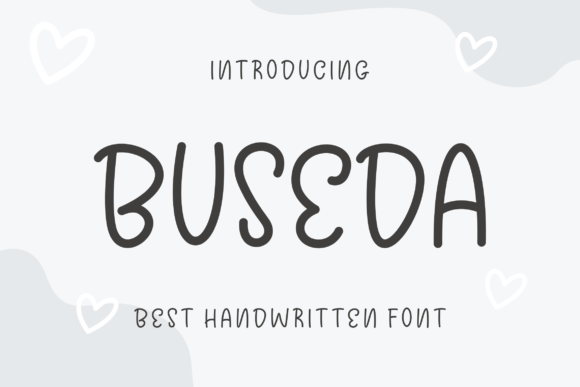
Behold Buseda Font - The Epitome of Technological Elegance!
In a digital realm where innovation thrives and creativity flourishes, Buseda Font emerges as the ultimate typographic masterpiece, perfectly tailored to elevate your tech logo designs to unprecedented heights. This modern and authentic handwritten font, meticulously crafted by the renowned Jhon Aburame, is a testament to the transformative power of visual aesthetics in the digital sphere.
Buseda Font: A Symphony of Style and Substance
Buseda Font is more than just a collection of letters; it is an artistic expression that captures the essence of technological advancement and human ingenuity. With its flowing strokes, dynamic curves, and captivating charm, Buseda Font breathes life into your tech logo designs, making them stand out from the mundane and resonate with your target audience.
Forge an Unforgettable Brand Identity
In a fiercely competitive digital landscape, a distinctive brand identity is paramount to success. Buseda Font empowers you to create a tech logo that is not only visually stunning but also deeply meaningful. Its unique character and personality will leave an indelible mark on the minds of your customers, fostering brand recognition and loyalty.
Harness the Power of Emotional Connections
Humans are emotional beings, and emotions drive our decisions. Buseda Font understands this inherent human nature and taps into the power of emotional connections to create tech logos that resonate with your audience on a deeper level. Its carefully crafted glyphs evoke feelings of trust, innovation, and sophistication, making your brand more relatable and approachable.
A Universe of Creative Possibilities
With Buseda Font as your creative companion, the possibilities for tech logo designs are endless. Whether you envision a sleek and minimalist logo that exudes professionalism or a vibrant and playful logo that reflects your brand's youthful spirit, Buseda Font can effortlessly adapt to your unique vision. Its versatility is truly remarkable, allowing you to create logos that are as diverse and captivating as the digital world itself.
Elevate Your Tech Brand to New Heights
In the ever-evolving realm of technology, stagnation is the antithesis of progress. Buseda Font propels your tech brand forward, enabling you to stay ahead of the curve and maintain a competitive edge. Its timeless design ensures that your tech logo will remain relevant and captivating for years to come, ensuring that your brand remains at the forefront of innovation.
Experience the Buseda Font Difference